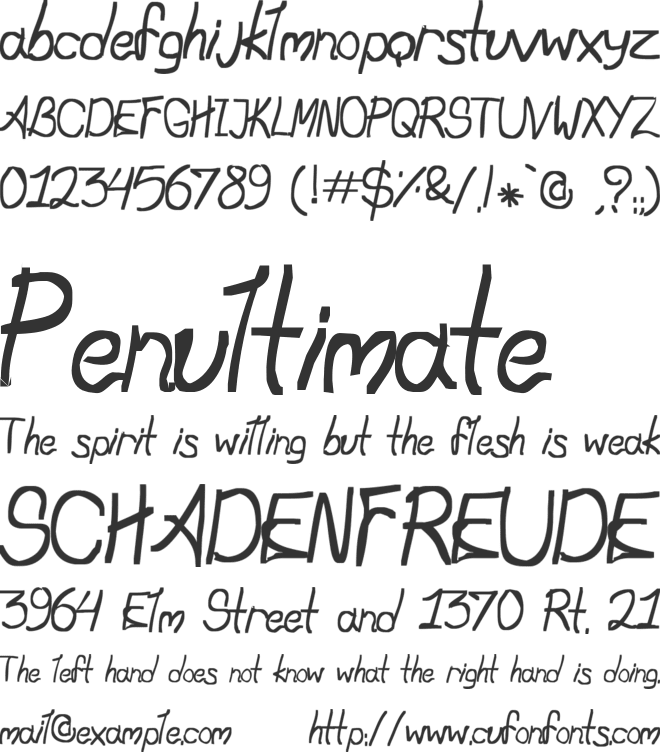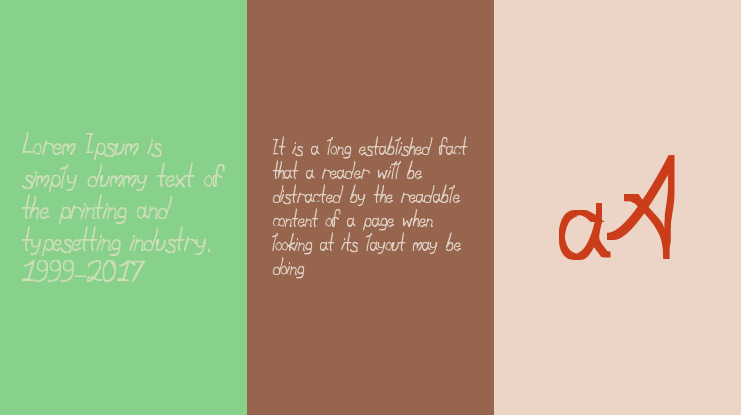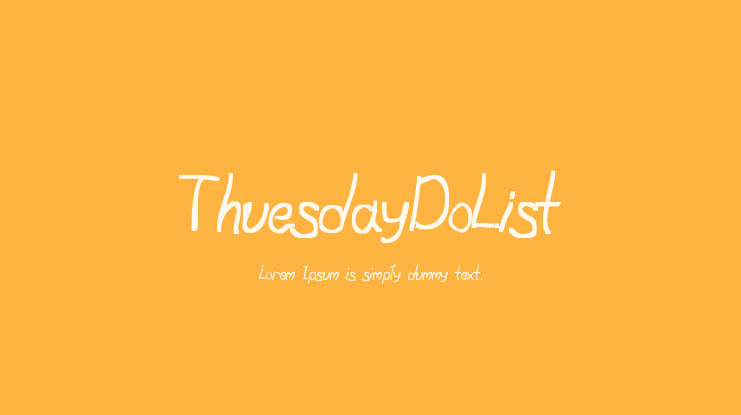
ThuesdayDoList Font
Here in this typeface '' Tuesday Do List '' I did try to create uniform set. All letters are close to my handwriting. Because of still, I was not able to achieve a decent kerning, I did include the very work files in the zip. Where you can tweak further to get desired harmonious pairing of each letters. Have Fun.